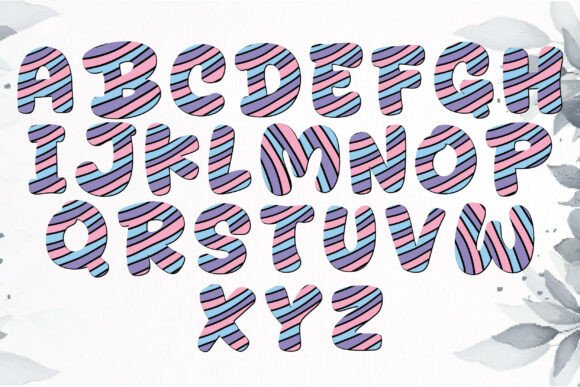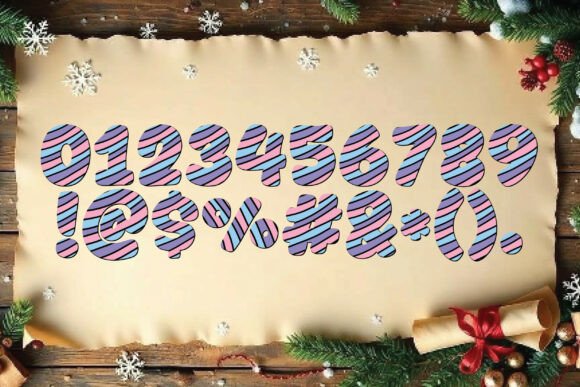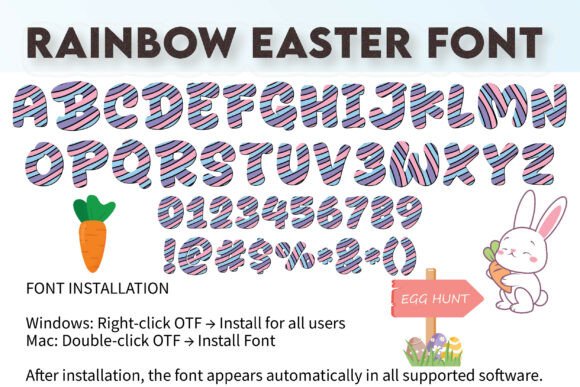
Introduction to Rainbow Easter Font
Rainbow Easter Colorful Cute Alphabets Celebrate Easter with bright colors and joyful style using the Rainbow Easter Font.
This playful and colorful alphabet is perfect for fun, kid-friendly, and cheerful spring designs This festive Rainbow Easter typeface features thick, bubbly characters filled with colorful, rhythmic stripes that perfectly match the β€œRainbow Easter OTF” aesthetic.
Key Features of Rainbow Easter Font
Why Choose Rainbow Easter Font?
Rainbow Easter Font offers exceptional quality and versatility, making it a valuable addition to your design toolkit. Whether you’re creating for personal projects or commercial use, Rainbow Easter Font delivers professional results.